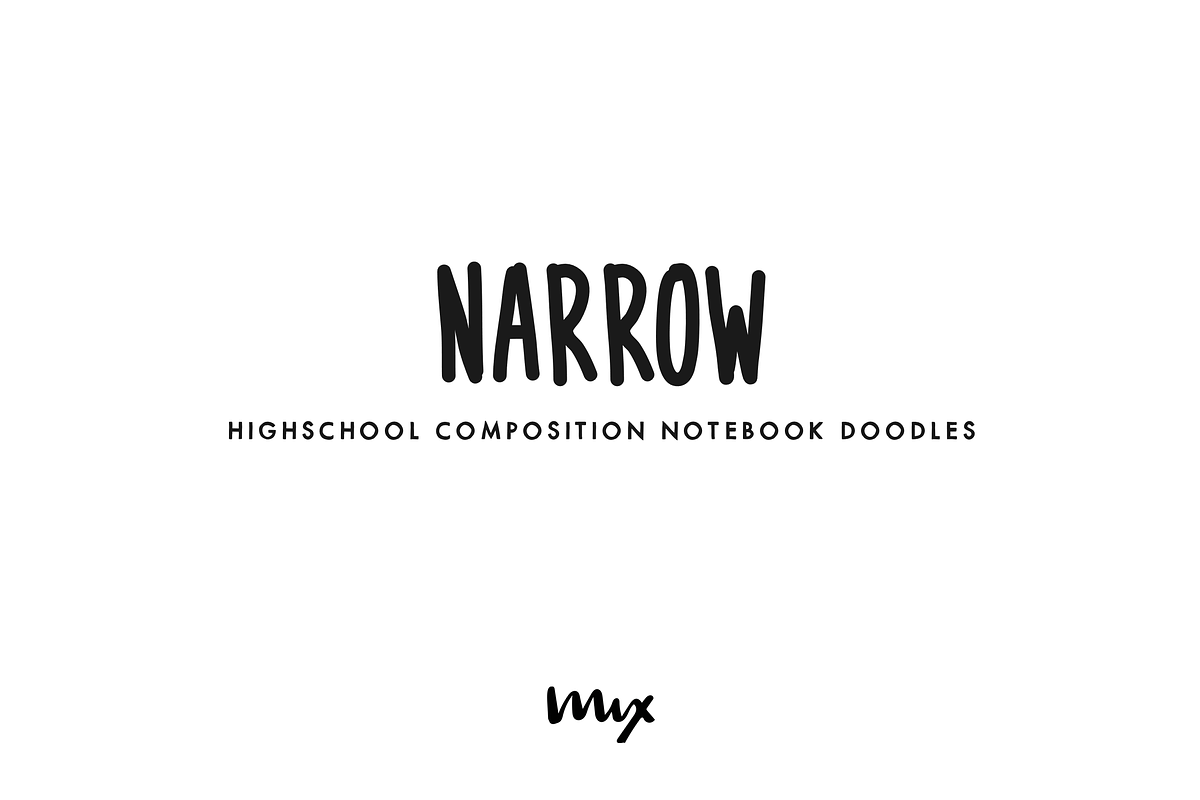
Narrow – A Handwritten Font Free Download is a clean, minimalist typeface that mimics the natural look of handwriting in a narrow, upright form. With its slim profile and subtle imperfections, Narrow is perfect for journaling-style quotes, personal branding, note-style graphics, minimalist packaging, and social media posts that call for a casual, handwritten touch.
Designed to bring simplicity and authenticity to your typography, Narrow – A Handwritten Font Free Download features tidy strokes and gentle curves that feel both personal and modern. It’s highly versatile, making it ideal for everything from planner designs to heartfelt messages and lifestyle branding.